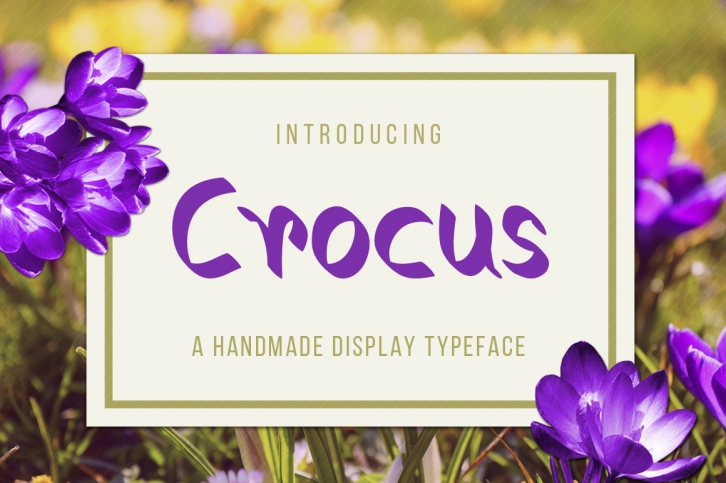
Crocus Typeface is a great font that was designed by Fancy Fonts. Imagine the amount of combinations you can create using this font! The archive is 4.17 MB and it was released on October 14, 2016. Crocus Typeface looks beautiful on wedding invitations, greeting cards, logos, posters, labels, t-shirt designs, logos, business cards and is perfect for use in ink or watercolor works, fashion, magazines, packaging and food menus, children's books and more!